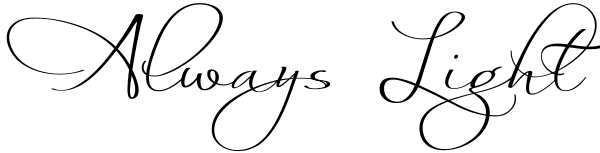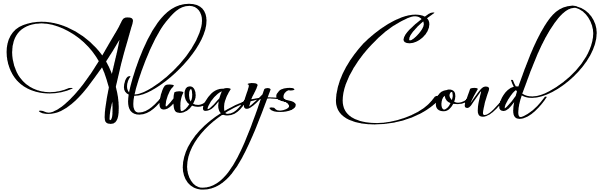
Always
Always is an elegant script font in six styles. Always makes full use of extravagant ascenders and descenders, giving the font a generous, opulent appearance. To use the font to its best advantage, we suggest that the user allows a generous line...
Always Black
Always Regular
Always Light
Always Fat
Always Cond
Always Cond Light